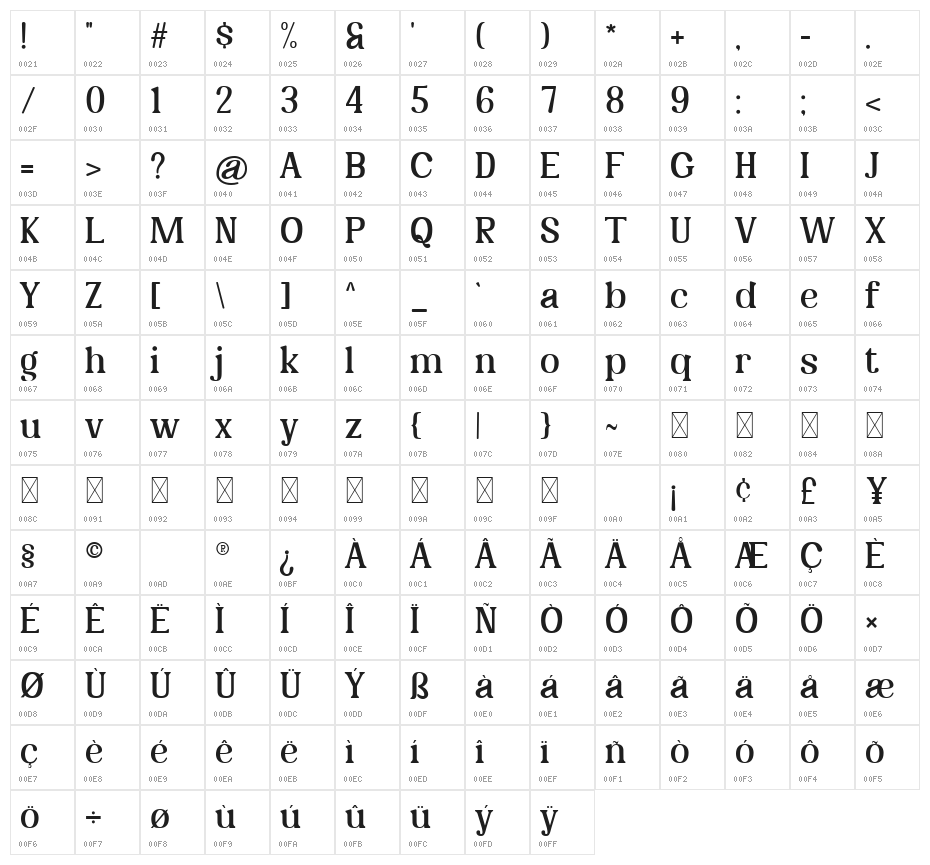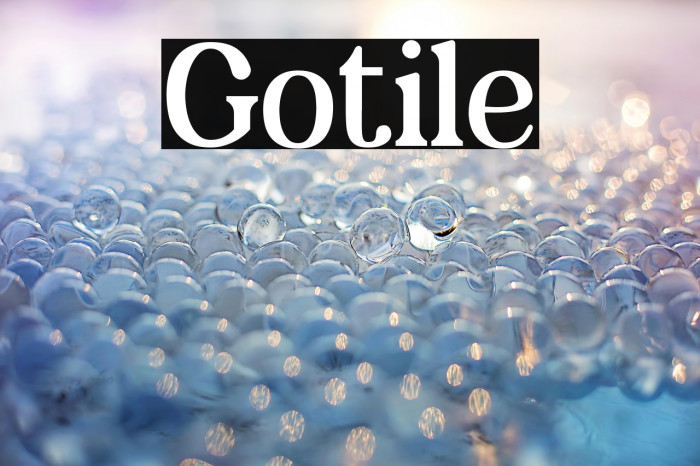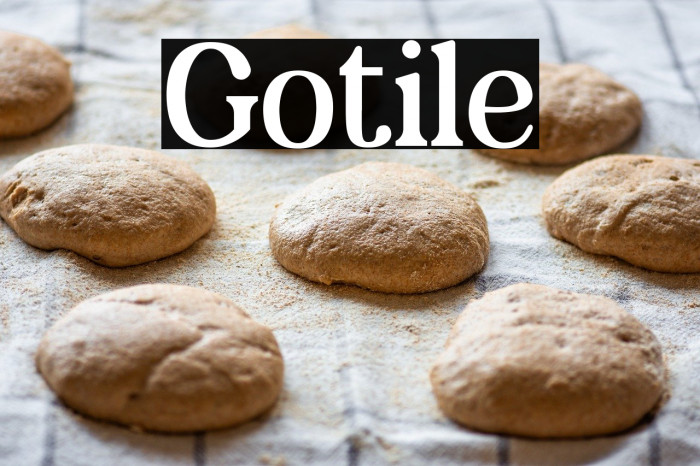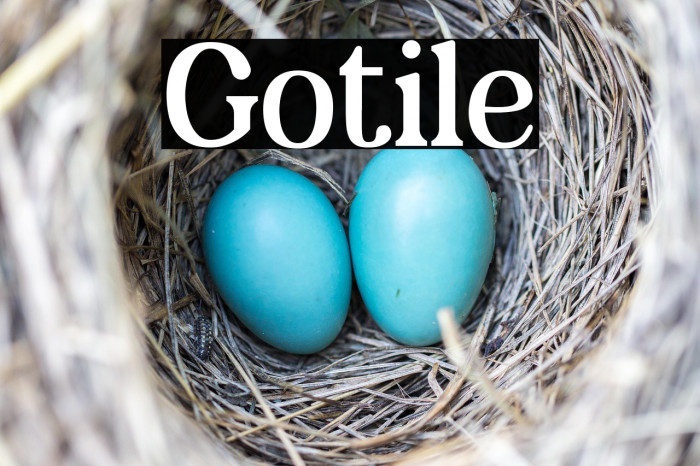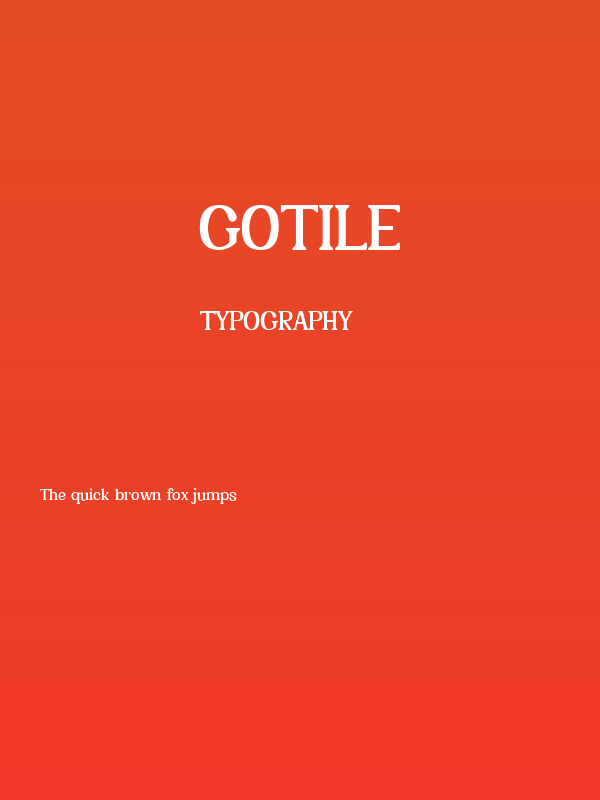
Gotile Font
Gotile Description
This font exhibits a classic serif style with a strong presence and high readability. The uppercase letters are bold and commanding, while the lowercase letters maintain a consistent and harmonious flow. The numerals are clear and distinct, making them suitable for various applications. The special characters are well-designed, ensuring they complement the overall aesthetic. The font's structure is balanced, with moderate contrast in stroke thickness, providing a timeless and elegant appearance.
| Overall Style | Classic |
| Use Case | Headlines, Body text, Logos |
| Proposed Projects | Ideal for editorial design, book covers, formal invitations, and branding projects that require a touch of elegance. |